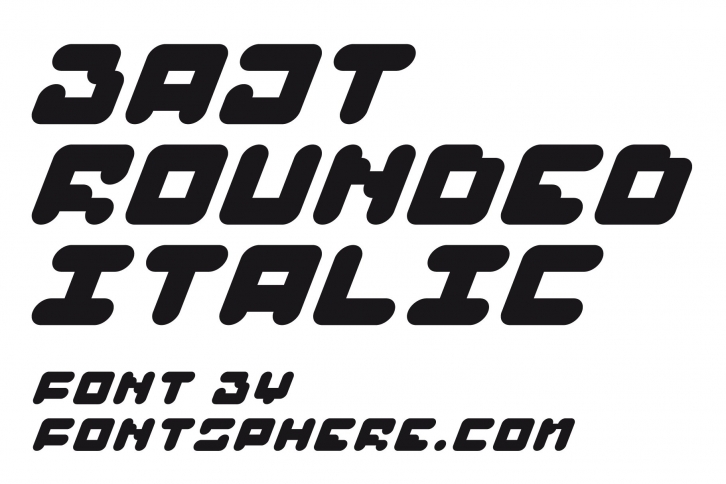
BAJT Rounded Italic is a futuristic all-caps display font with geometric forms.
Use for awesome display, illustrations, posters, logos, t-shirts, titles, and much more..
Font include multilingual support (Latin-1), uppercase letters, numerals and a large range of punctuation.